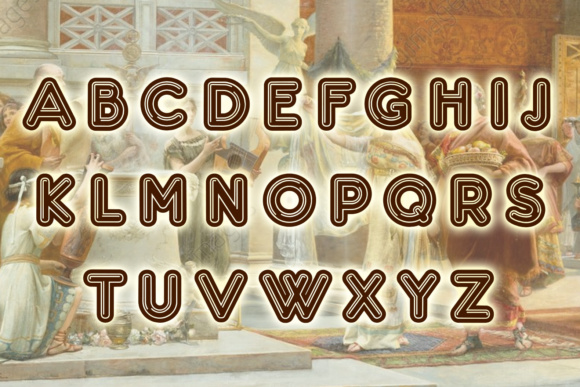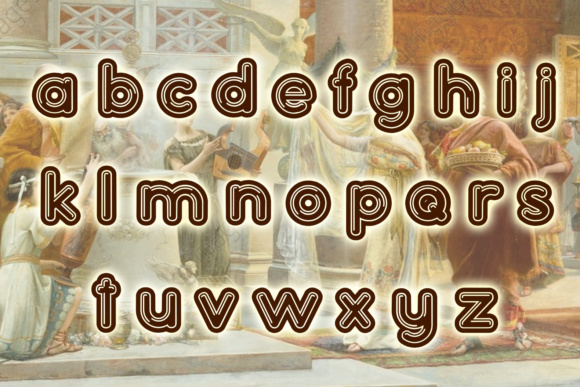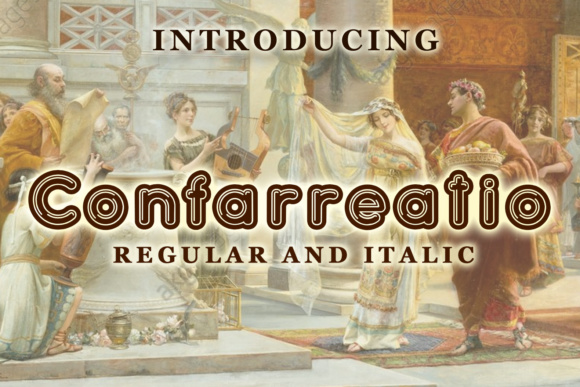
Introducing Confarreatio Font: The Perfect Bubbly Addition to Your Designs
Are you tired of using the same old fonts in your designs? Look no further! The Confarreatio font is here to add a touch of whimsy and fun to your projects. This awesome bubbly font comes in both regular and italic variants, making it perfect for a wide range of applications. In this article, we’ll dive into the features and benefits of the Confarreatio font, and explore how you can use it to take your designs to the next level.
A Font that’s Full of Personality
The Confarreatio font is a unique and eye-catching addition to any design. Its bubbly and playful style is sure to grab attention and add a touch of personality to your projects. Whether you’re working on a headline, flyer, shirt, or any other print material, this font is sure to make it stand out. The regular and italic variants offer a range of possibilities, from bold and attention-grabbing to elegant and sophisticated.
The Confarreatio font is a dream come true for designers and crafters. Its versatility and range make it perfect for a wide range of projects, from digital designs to print materials. Whether you’re working on a logo, brochure, or social media graphic, this font is sure to add a touch of personality and style. And with its easy-to-use format, you can quickly and easily incorporate it into your workflow.
Key Features of the Confarreatio Font
- Bubbly and playful style: The Confarreatio font has a unique and eye-catching style that’s sure to grab attention.
- Regular and italic variants: The font comes in both regular and italic variants, offering a range of possibilities for your designs.
- Perfect for headlines and body text: The Confarreatio font is suitable for both headlines and body text, making it a versatile addition to your font library.
Using the Confarreatio Font in Your Designs
So, how can you use the Confarreatio font in your designs? Here are a few ideas to get you started:
- Headlines and titles: Use the Confarreatio font to add a touch of personality to your headlines and titles.
- Flyers and brochures: The font is perfect for flyers and brochures, adding a playful and eye-catching touch to your marketing materials.
- T-Shirts and apparel: The Confarreatio font is a great choice for t-shirts and other apparel, adding a fun and playful touch to your designs.
- Digital designs: The font is also perfect for digital designs, including social media graphics, blog posts, and more.
Tips for Getting the Most Out of the Confarreatio Font
Here are a few tips for getting the most out of the Confarreatio font:
- Experiment with different sizes and colors: Don’t be afraid to experiment with different sizes and colors to find the perfect combination for your design.
- Pair it with other fonts: The Confarreatio font pairs well with a range of other fonts, so don’t be afraid to get creative and try out different combinations.
- Use it to add personality: The Confarreatio font is all about adding personality to your designs, so don’t be afraid to let it shine!
In conclusion, the Confarreatio font is a unique and eye-catching addition to any design. Its bubbly and playful style, combined with its versatility and range, make it perfect for a wide range of projects. Whether you’re a designer or crafter, this font is sure to become a favorite in your font library. So why not give it a try and see how it can add a touch of personality to your designs?